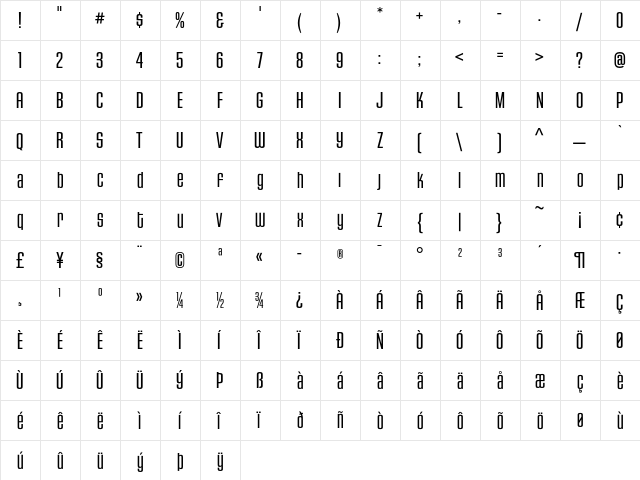
HouseGothicHG23Cond LIGHT2
| Designer | Allen Mercer/Tal Leming |
Design Context for HouseGothicHG23Cond Typeface
HouseGothicHG23Cond has the quiet confidence of well-executed sans-serif typography: versatile, unobtrusive, and dependable at any size. The delicate stroke weight brings airiness and refinement to layouts. Its narrow stance lets it pack a punch even in space-constrained designs.
Ideal for fashion and beauty branding, minimal editorial layouts, and premium digital experiences.
Font Pairing: Pair HouseGothicHG23Cond with a medium or bold serif for headlines — the weight contrast creates an elegant, high-end feel.
Pro Tip: Try HouseGothicHG23Cond in all-caps with moderate tracking for navigation and label copy — it performs well in systematic UI contexts.